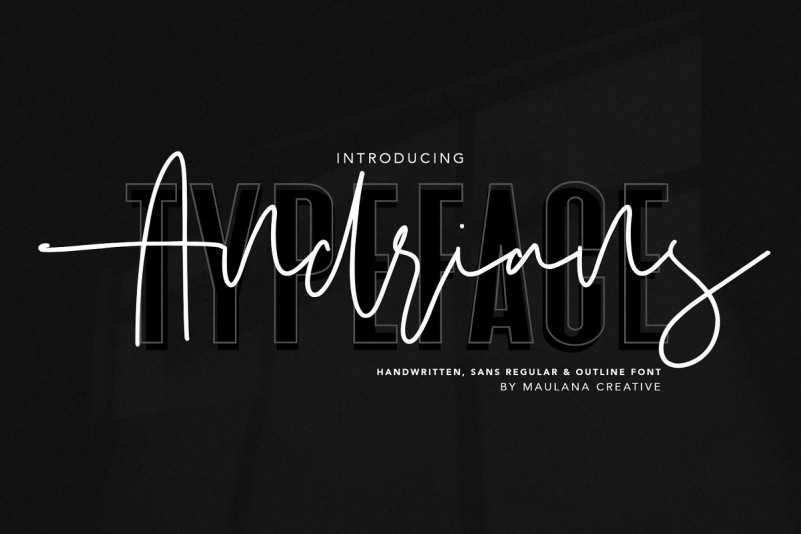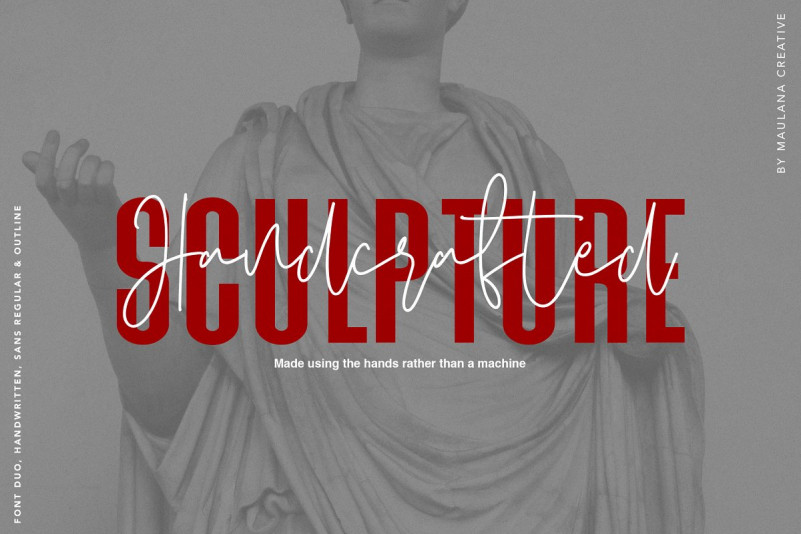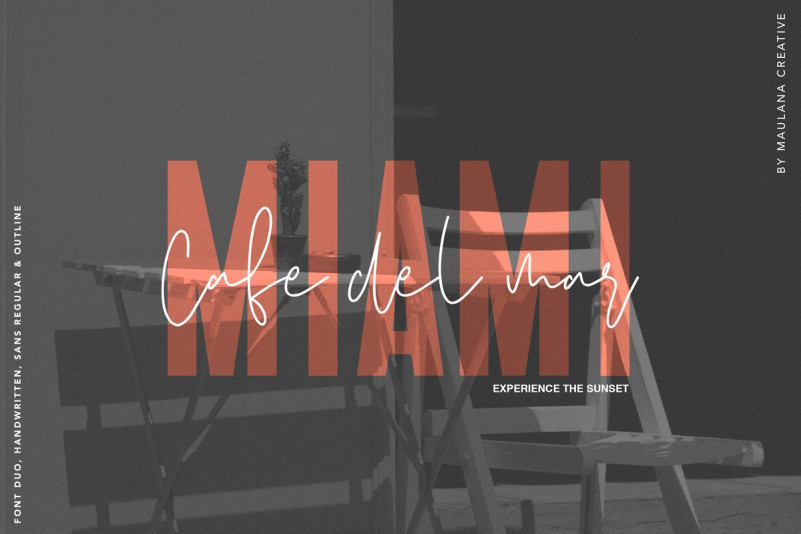
Andrians Font
Give your designs an authentic handcrafted feel. “Andrians” is perfectly suited to signature, stationery, logo, typography quotes, magazine or book cover, website header, clothing, branding, packaging design and more.